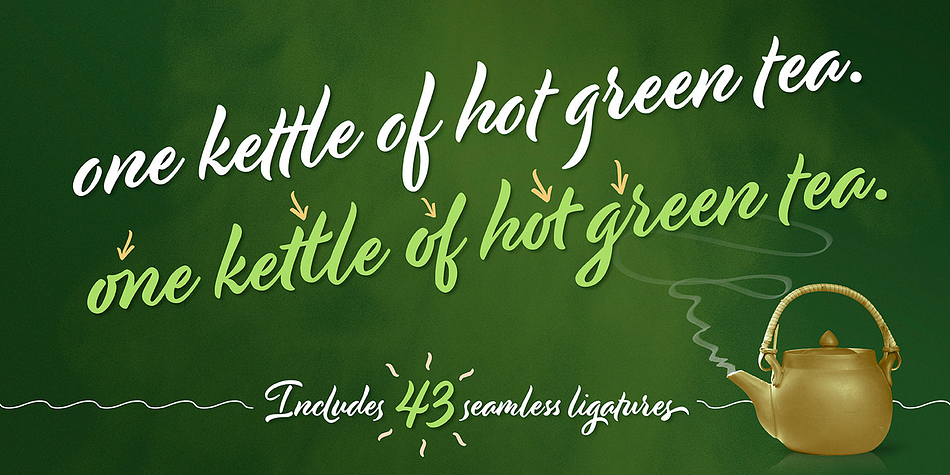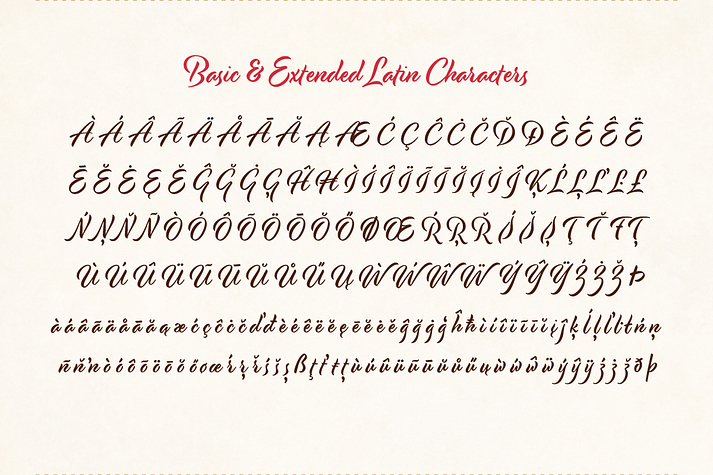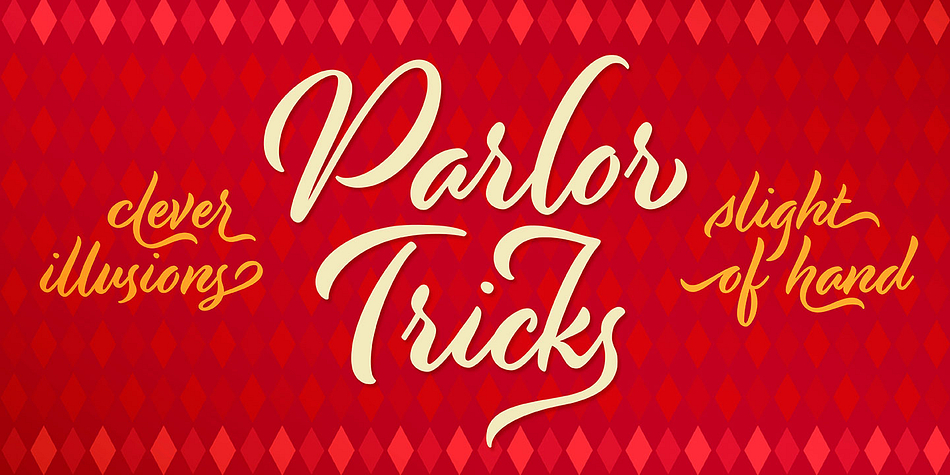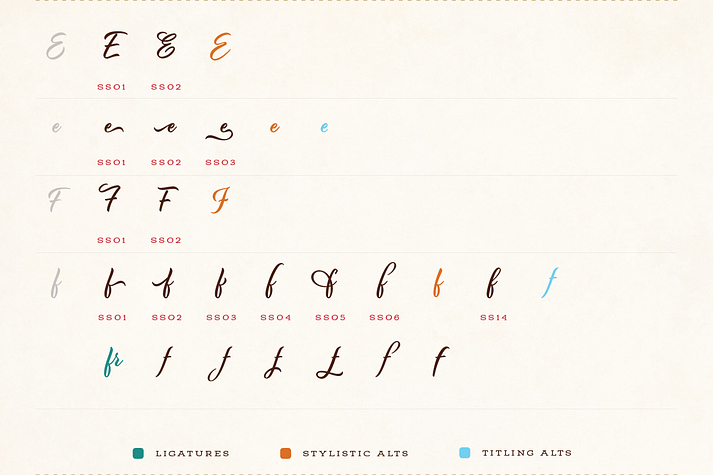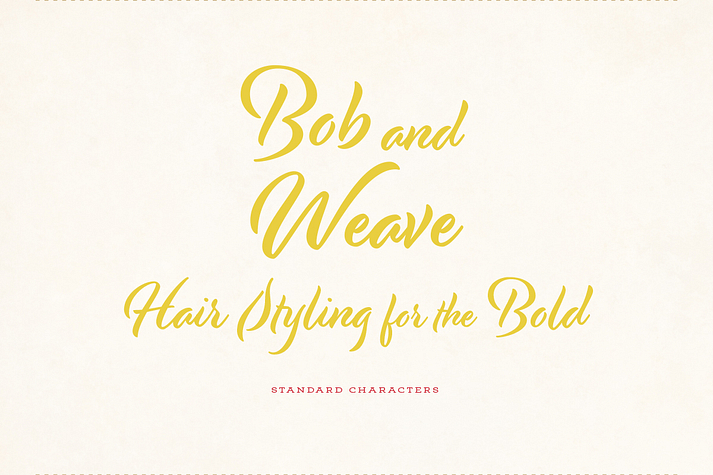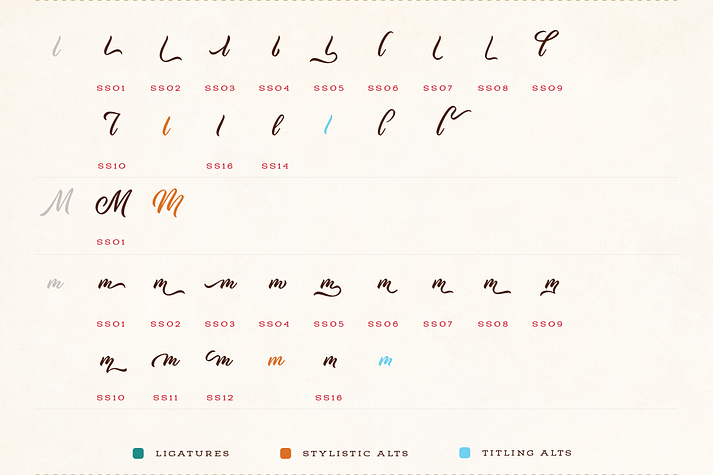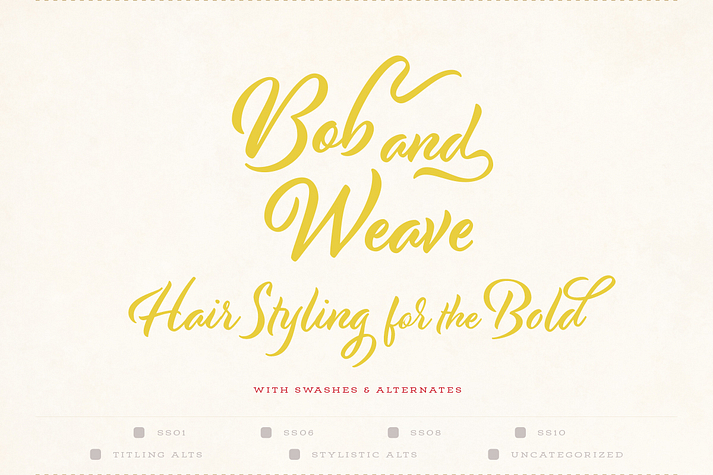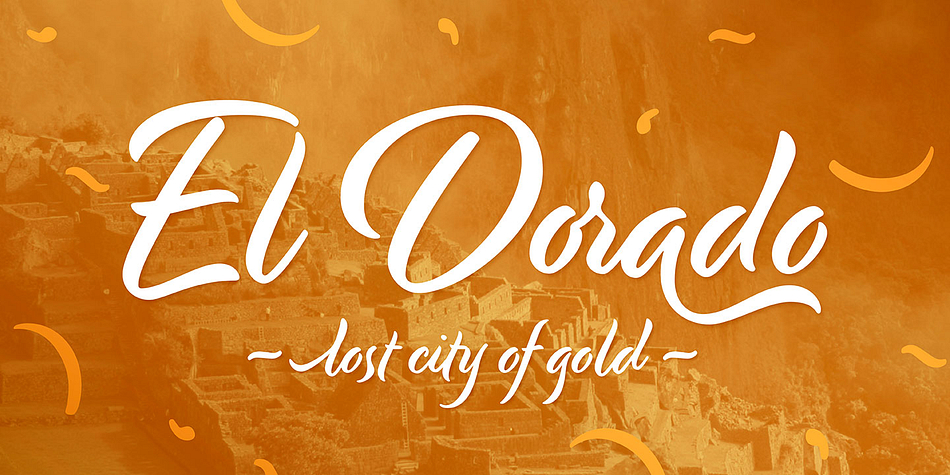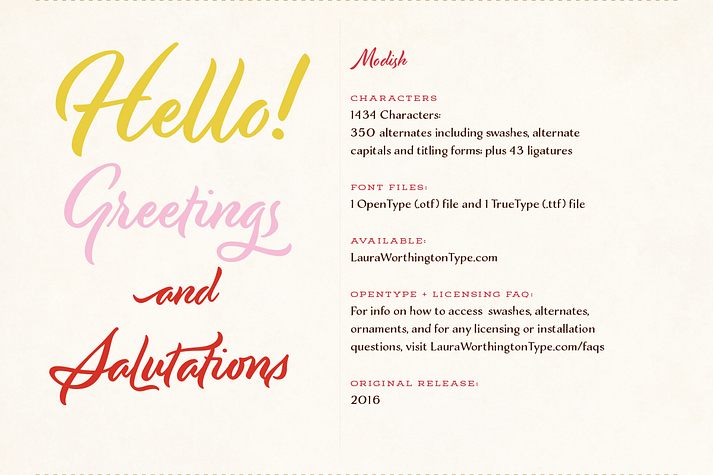
Modish
Designed by Laura Worthington, Modish is a brush script font published by Laura Worthington.
Inky but neat.
Flowing but controlled.
Modish perfectly balances two predominant aesthetics of fashion and lifestyle: the casually cool  hand-drawn look, and the pixel-perfect slickness of digital design.
This synthesis might be due partly to how it was created: it
The result is a face that’s ideal for on-trend designs for food, clothing, cosmetics, retail packaging, or menus.
As usual, it includes a plethora of 350 swashes and alternates, plus 43 ligatures.
Modish is a  single  font family.
The Modish font is a brush script font by Laura Worthington.
Modish  has extensive OpenType support including 15 additional stylistic sets, Stylistic Alternates and Standard Ligatures making it a powerful font for experienced designers.
Modish is designed by Laura Worthington and has extensive Latin language support.
Designed by Laura Worthington, Modish is a brush script font  and was published by Laura Worthington.
Modish has extensive Latin language support.
Inky but neat. Flowing but controlled. Modish perfectly balances two predominant aesthetics of fashion and lifestyle: the casually cool  hand-drawn look, and the pixel-perfect slickness of digital design. This synthesis might be due partly to how it was created: it’s Laura’s first typeface that began life on an iPad, drawn with Apple Pencil. The result is a face that’s ideal for on-trend designs for food, clothing, cosmetics, retail packaging, or menus. As usual, it includes a plethora of 350 swashes and alternates, plus 43 ligatures.